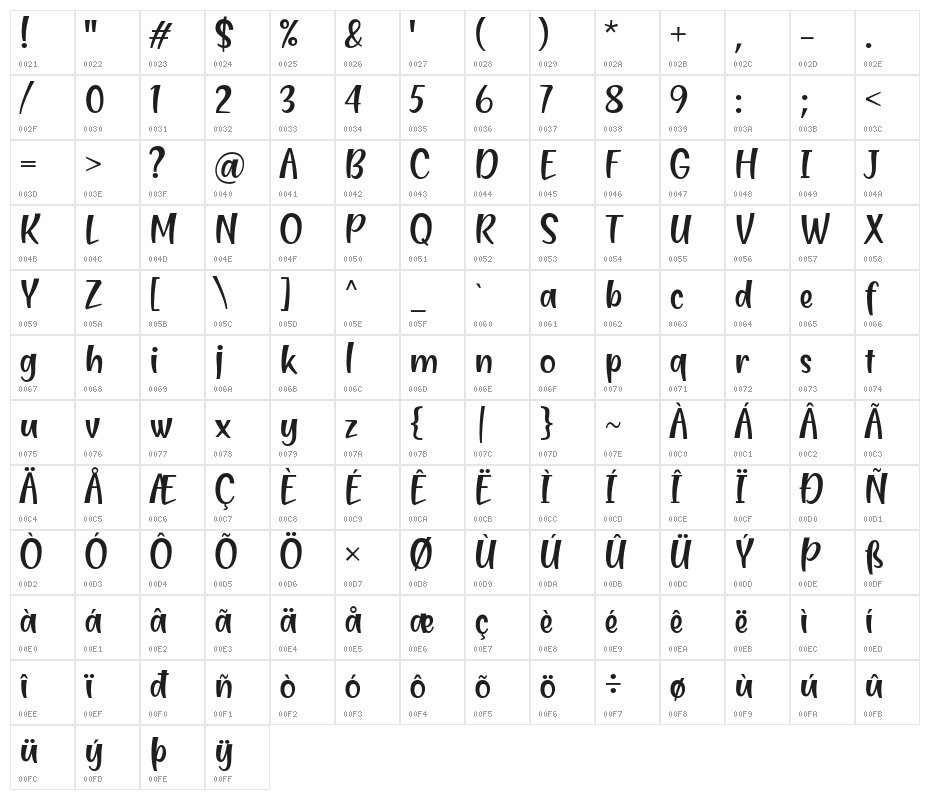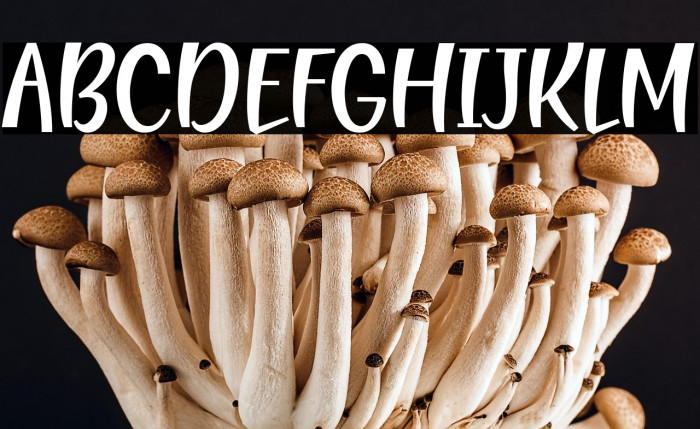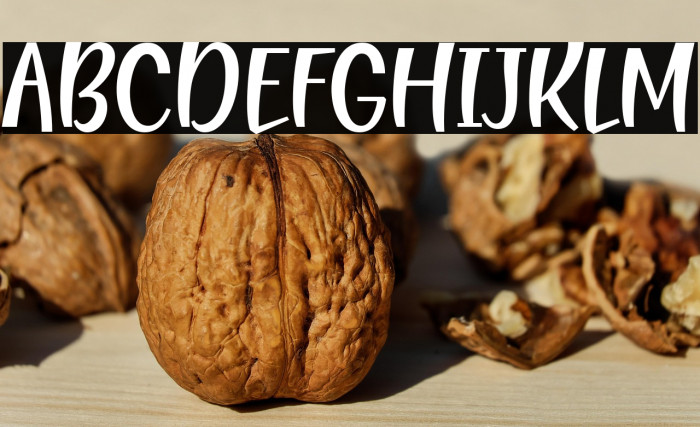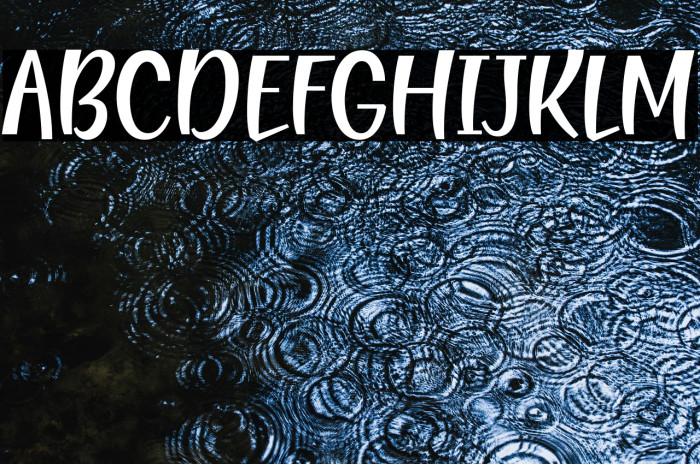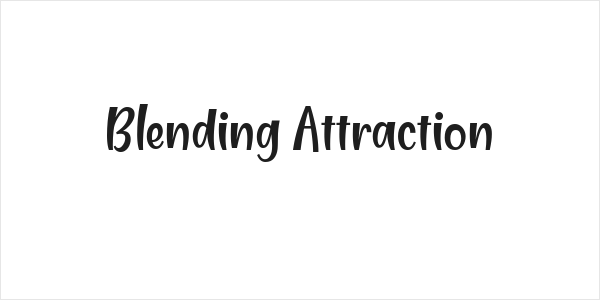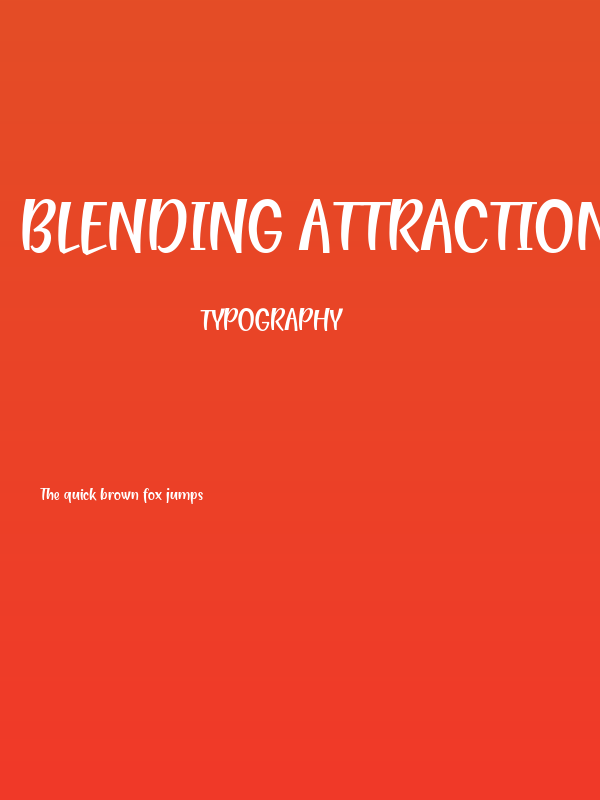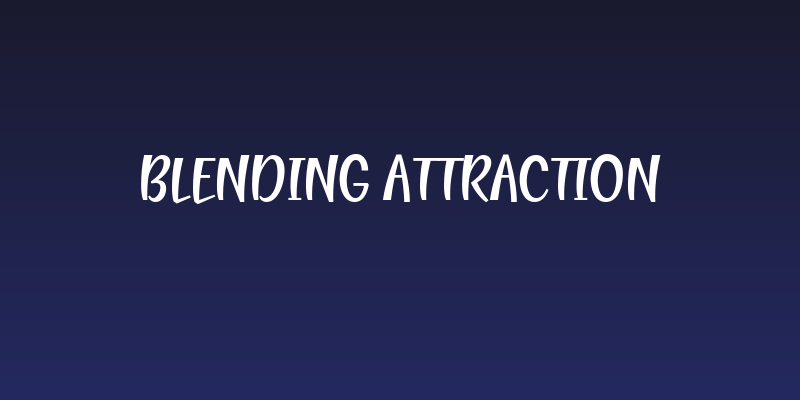
Blending Attraction Font
Blending Attraction Description
This font features a playful and energetic style with a handwritten feel. The characters are bold and slightly slanted, giving a sense of movement and dynamism. The uppercase letters are tall and narrow, while the lowercase letters maintain a consistent height, creating a harmonious balance. The numerals are bold and easily readable, complementing the overall design. Special characters are creatively styled, adding to the font's unique personality. This font is ideal for projects that require a lively and informal touch, such as invitations, posters, and branding materials.
| Proposed Projects | Ideal for invitations, posters, branding materials, and any project needing a lively touch. |